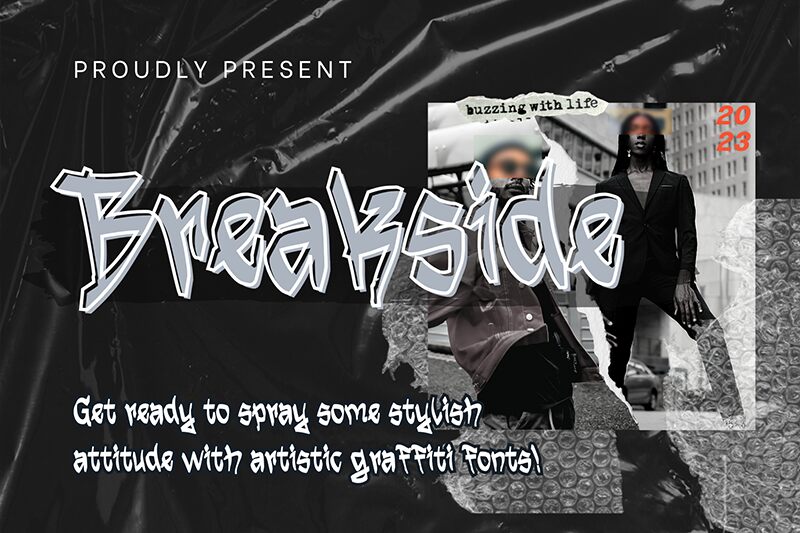
Breakside font by Sarif Letter is a free graffiti font that exudes an expressive and energetic character. This dynamic typeface is inspired by the rebellious essence of street art, presenting an urban and bold aesthetic. Perfect for contemporary applications, it merges the raw and unrestrained vibe often associated with graffiti, aiming to transfer its energy onto any project that calls for a vigorous visual impact.
The font is suitable for a wide range of professional and personal uses. Consider it for branding, logo design, packaging, bands, song covers, video titles, tattoos, posters, banners, social media, and more. Whether it's for creating an impactful headline or adding a touch of street-art vibe to your projects, Breakside is a perfect choice.